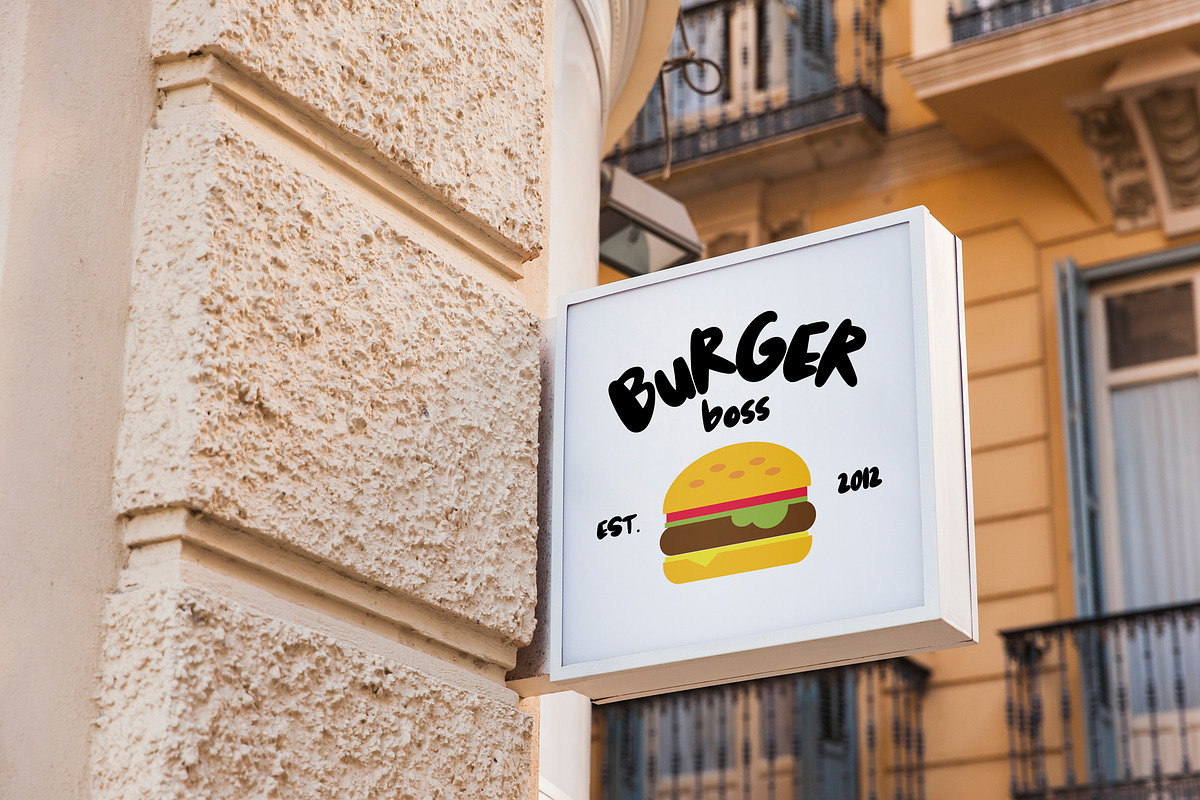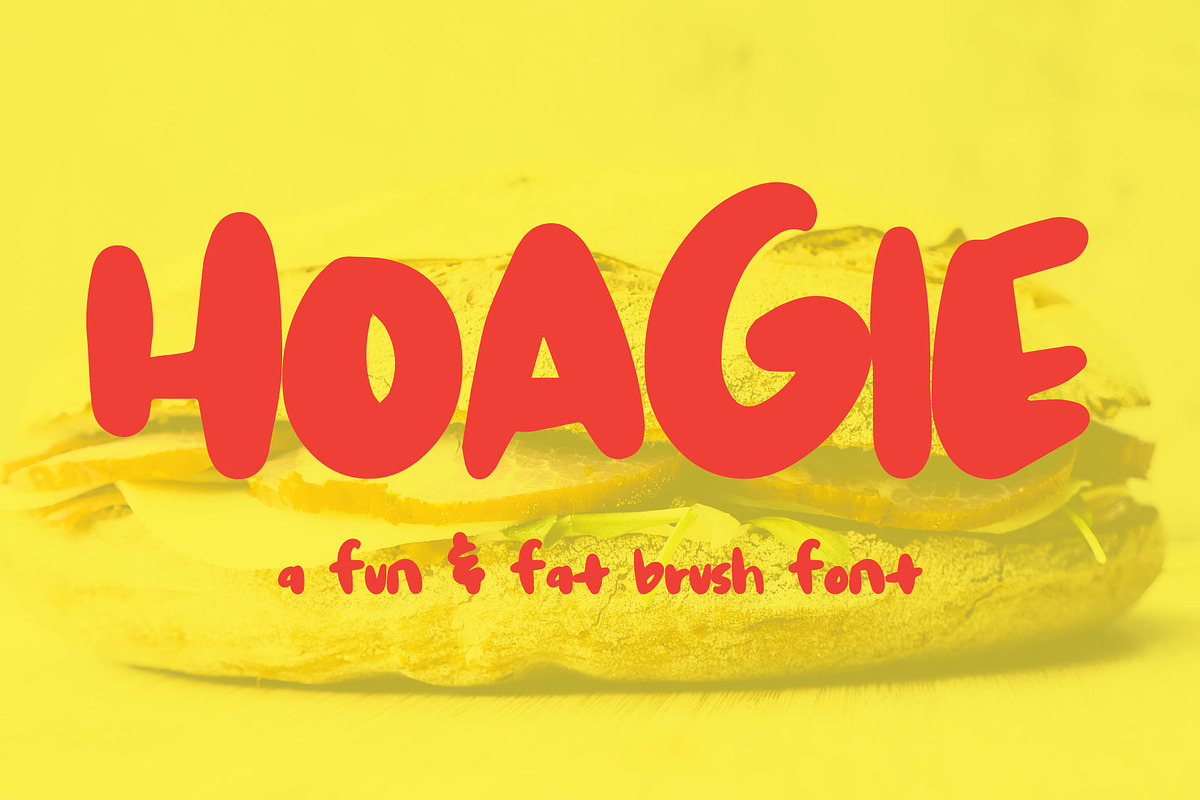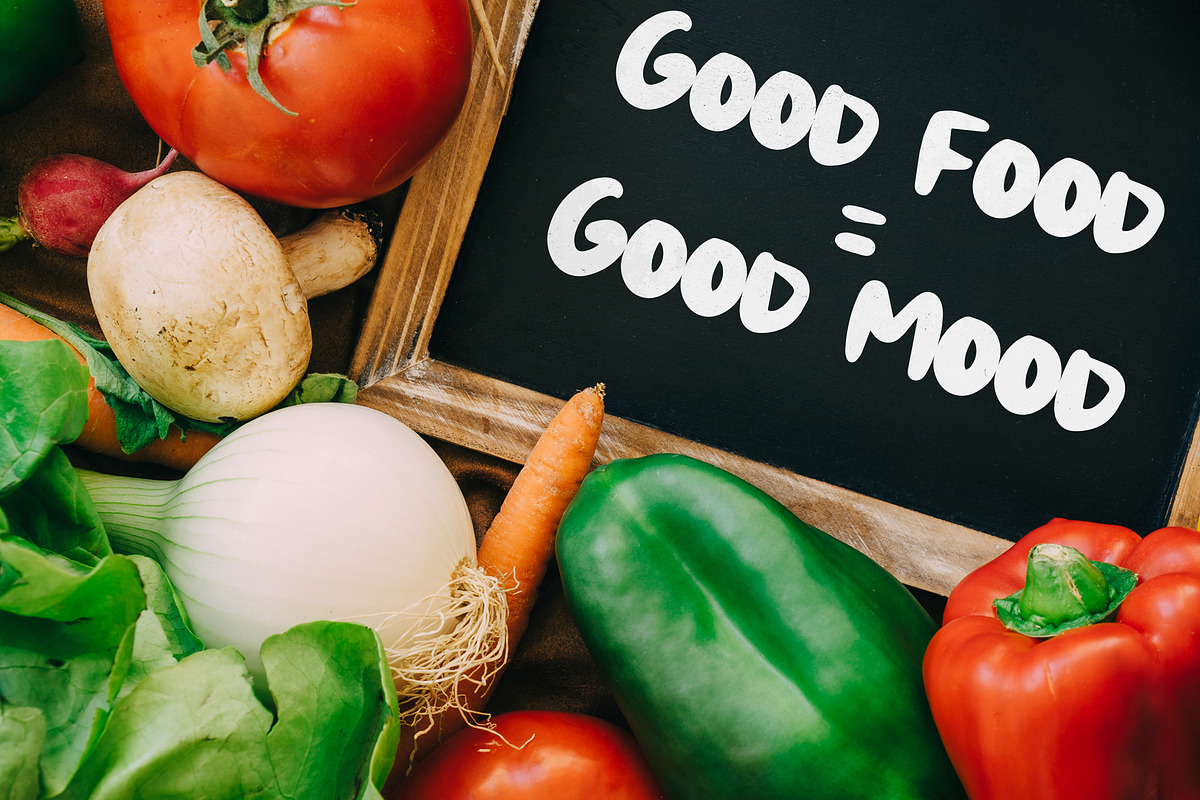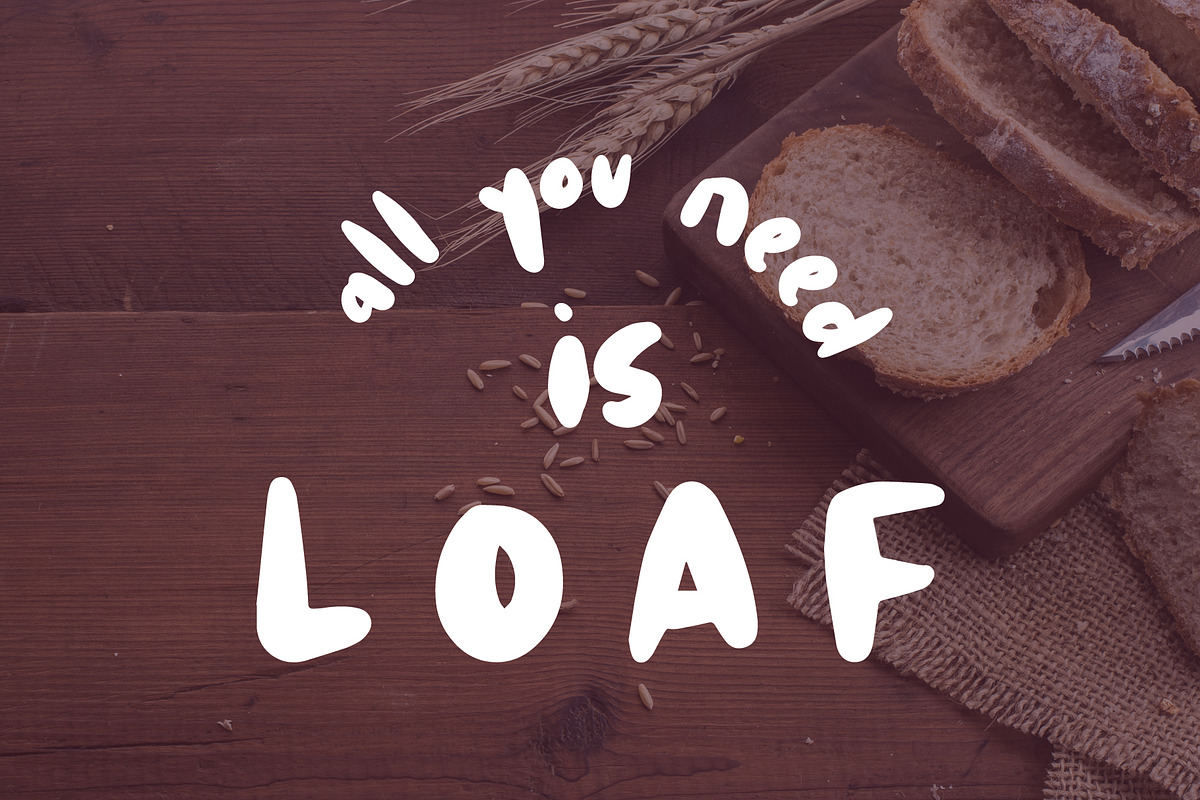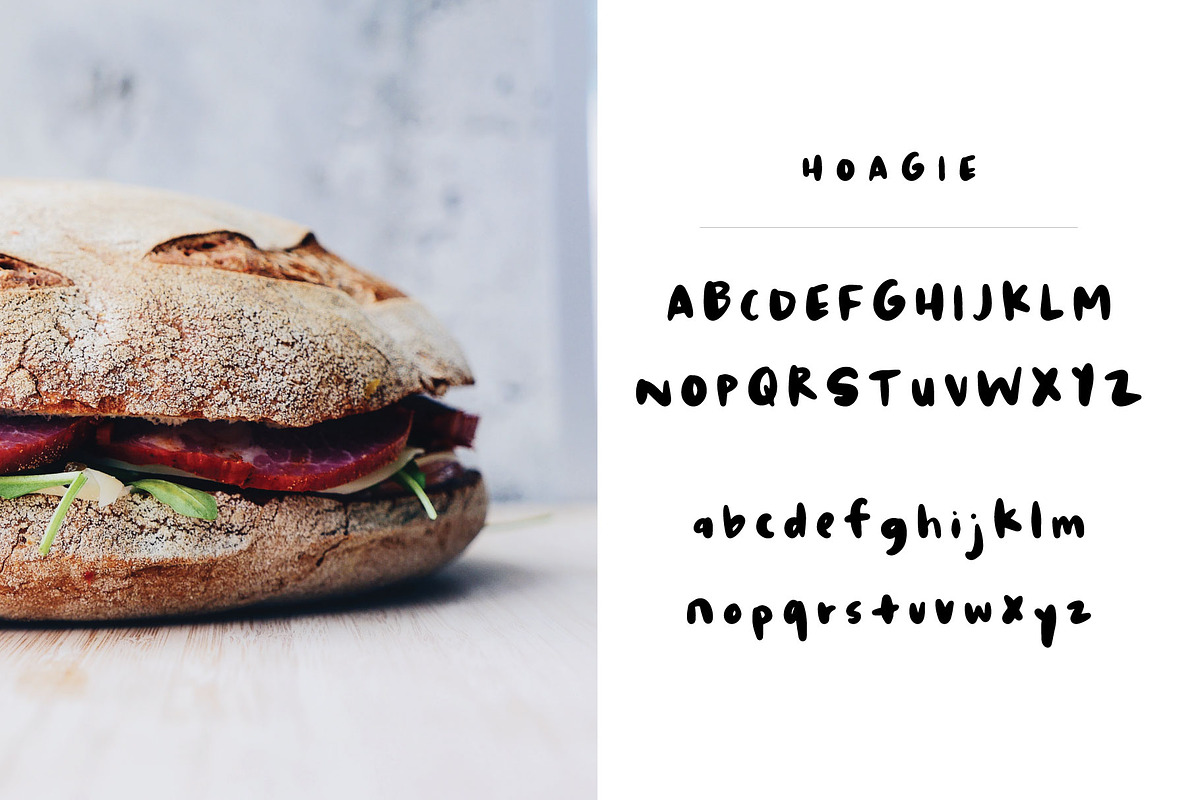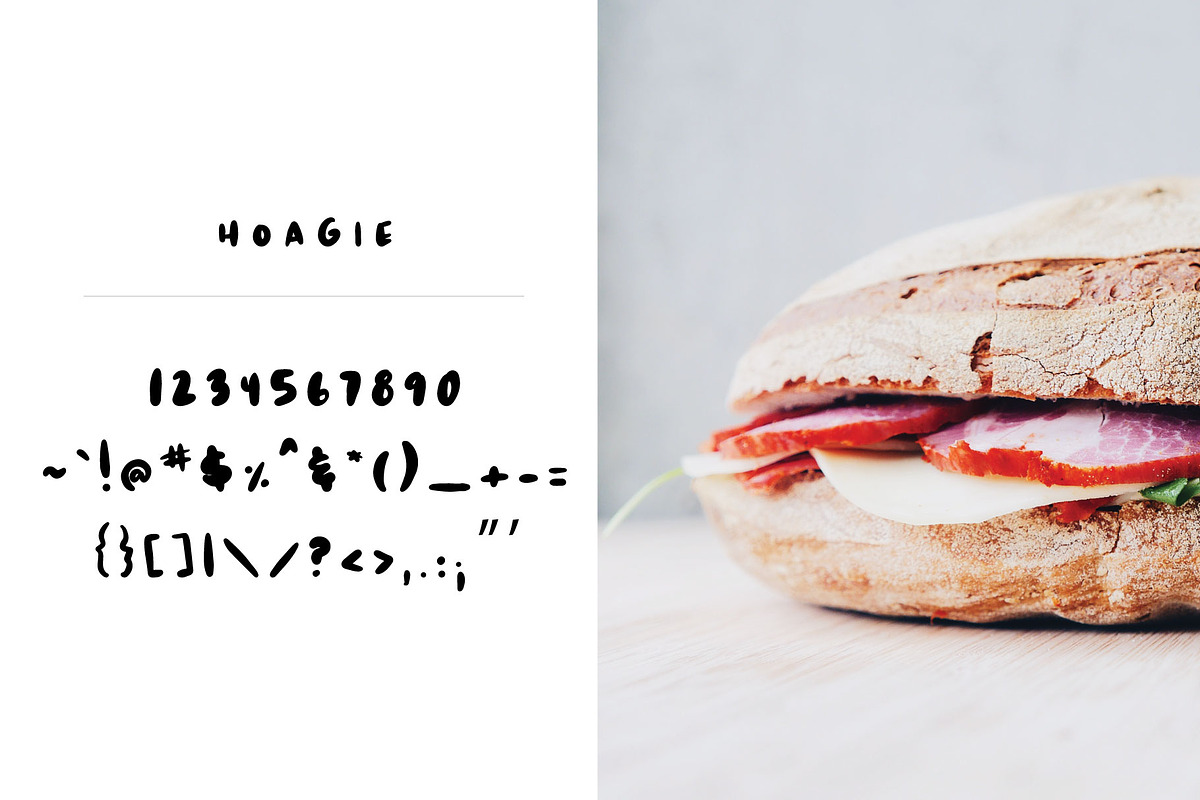
Hoagie Brush Font
Introducing Hoagie: a fat, fun, sans-serif hand drawn brush font that is great for everything, in both small and large formats.
Why Hoagie Brush Font is worth a look
Hoagie Brush Font by Midnight Grim fits naturally into Branding, posters, packaging, typography.